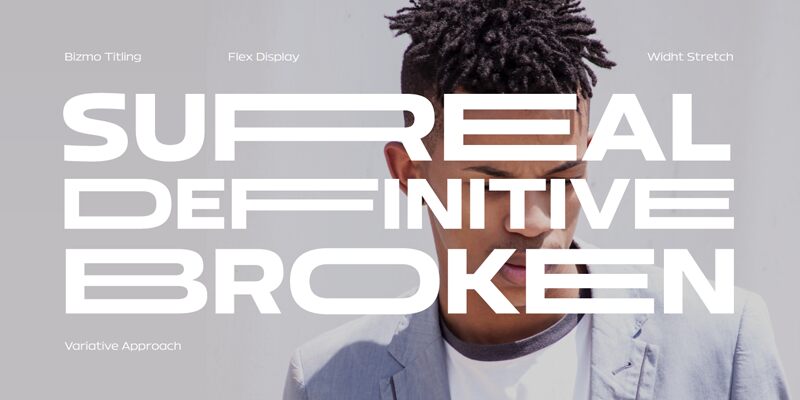
Bizmo Bold, a creation by font designer Eko Bimantara, is a trendy and eye-catching sans serif font. With its expanded width, it is specifically designed to fill large spaces, making it ideal for branding and contemporary design projects.
This versatile font offers nine weights with matching oblique styles, allowing for endless possibilities. One of its standout features is the ability to stretch certain uppercase glyphs using discretionary ligatures, simply by double or triple typing the letter.
With over 420 glyphs supporting various languages, Bizmo Bold is perfect for creating impactful branding materials, advertising campaigns, attention-grabbing posters, and striking signage. Let Bizmo Bold make your designs stand out with its unique and captivating styling.